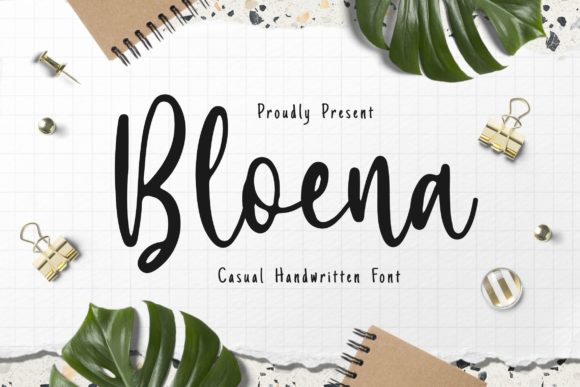
The Bloena Font: A Timeless Handwritten Treasure
Have you ever been in the middle of a design project, and suddenly, everything looks dull and lifeless? You’re not alone! I recall working on a branding project for a boutique client, and no matter how hard I tried, the design just wouldn’t pop. That’s when I stumbled upon the Bloena font, and it completely transformed my design. In this article, we’ll dive into the world of Bloena, exploring its unique features, and how to make the most of this lovely handwritten font.
A Personal Encounter with Bloena
I was working on a logo design for a craft business, and I needed a font that would capture the essence of handmade and unique. After hours of searching, I finally found Bloena, and it was love at first sight! The font’s elegant, cursive strokes and beautiful touch instantly elevated my design. I knew right then that Bloena would be a game-changer for my design projects.
An Honest Review of Bloena
So, what makes Bloena so special? Let’s dive into the good stuff! 🤩
- ✨ Unique and beautiful touch: Every letter in Bloena has a distinct character, making your design truly stand out.
- ✅ Elegant and timeless: Bloena’s classic look ensures your design won’t go out of style anytime soon.
- 💫 Perfect for branding and quotes: The font’s flowing script makes it ideal for creating eye-catching logos, social media posts, and inspirational quotes.
Now, let’s talk about a few quirks ⚠️:
- 🤔 Limited use in small sizes: Bloena’s intricate details can get lost when used in very small sizes, so it’s best to use it in larger sizes or headings.
- ⚠️ Some letters may require manual kerning: As with any font, you might need to adjust the spacing between certain letters to achieve the perfect look.
The Backstory of Bloena
Bloena’s story begins with a passionate font designer who aimed to create a timeless, handwritten font. Inspired by classic calligraphy and elegant scripts, Bloena was crafted to bring a touch of sophistication to any design. Although the designer’s story might be fictional, Bloena’s impact on the design world is very real.
| Font Name | Bloena Font |
| What makes Bloena unique? | Bloena’s unique touch and elegant strokes set it apart from other fonts. |
| Is Bloena suitable for body text? | Bloena is best used for headings and titles; its intricate details might not be suitable for large blocks of body text. |